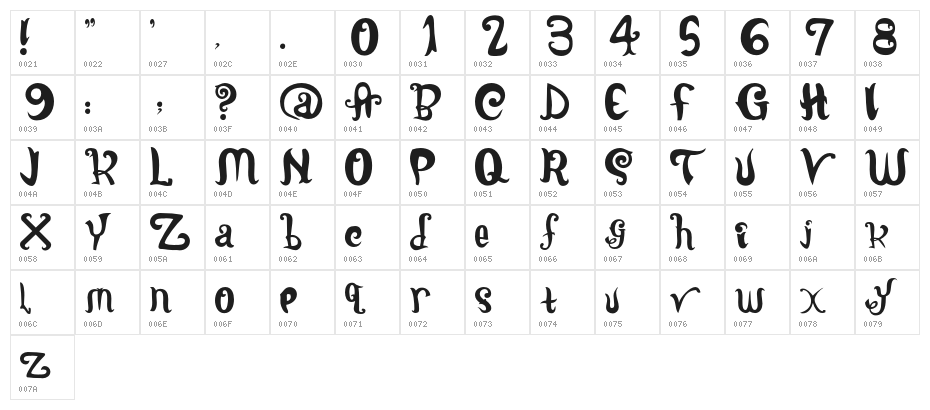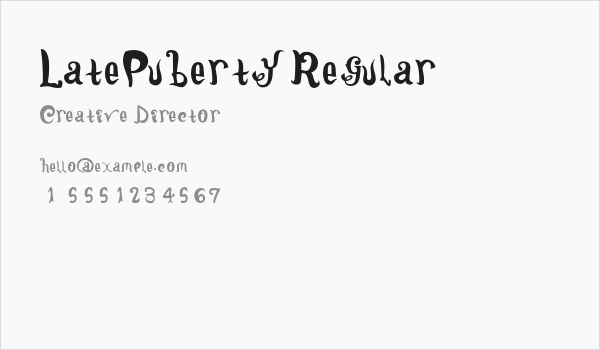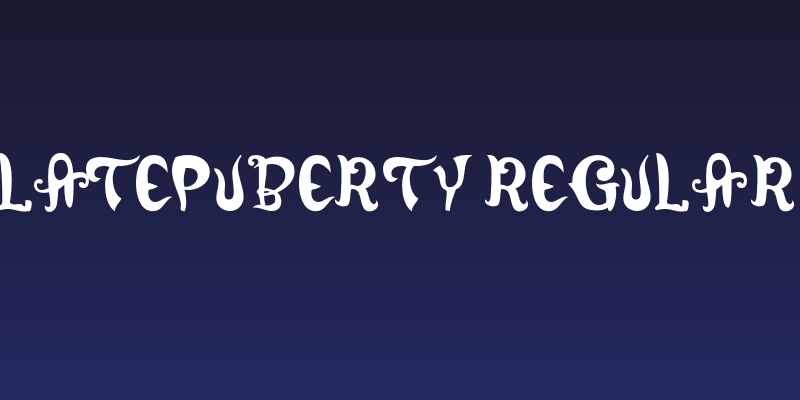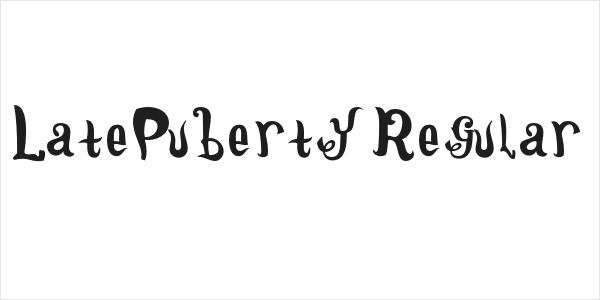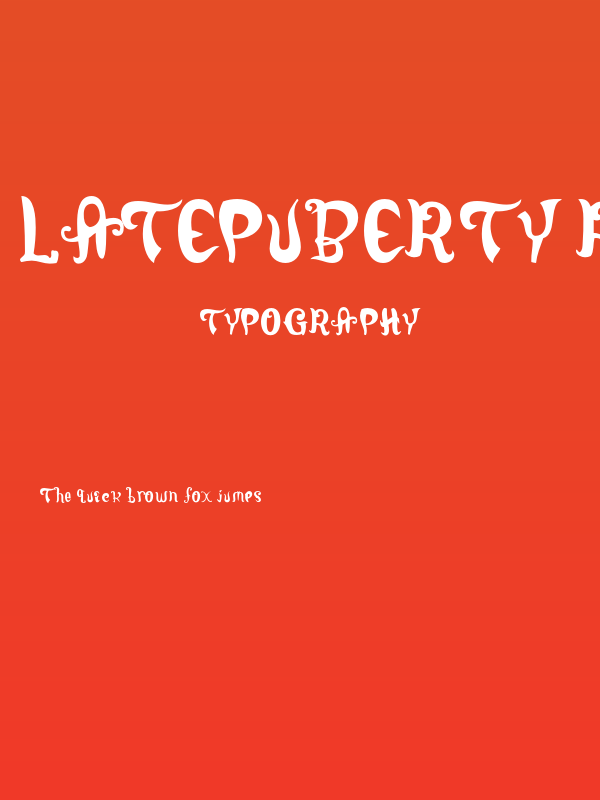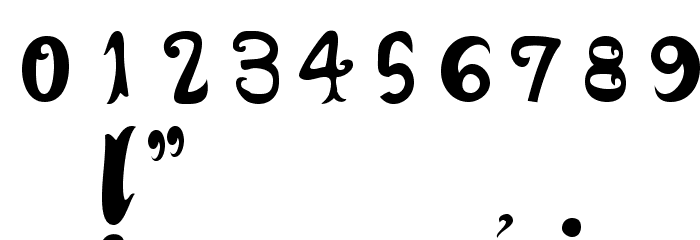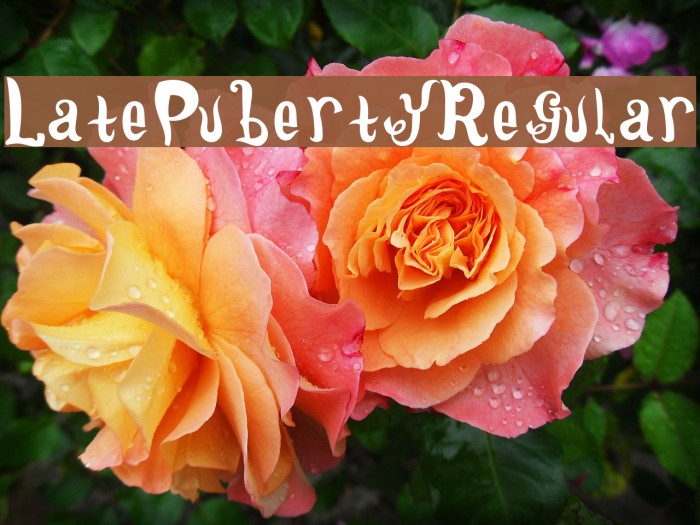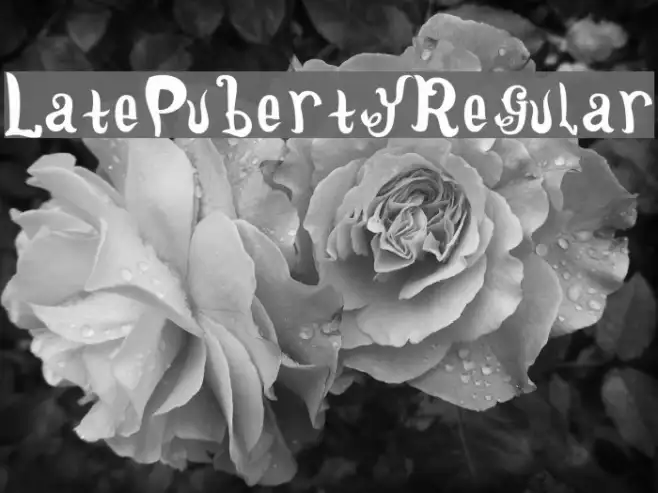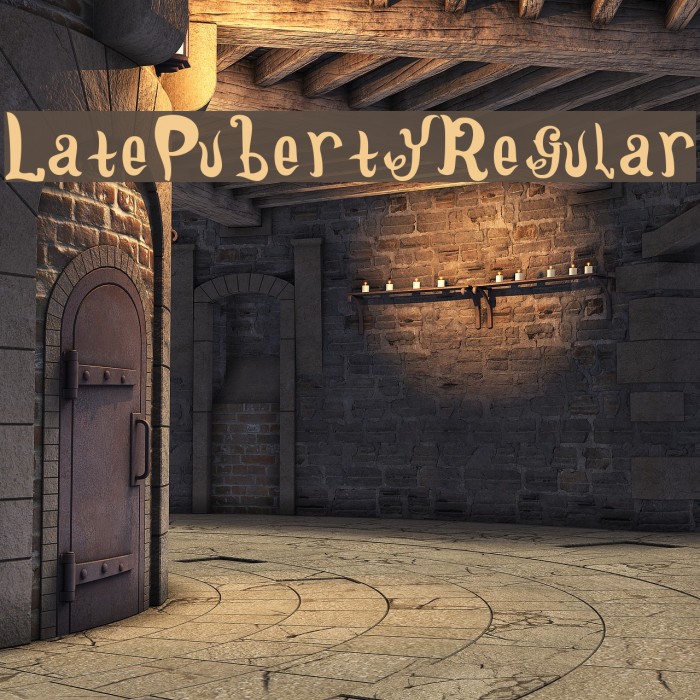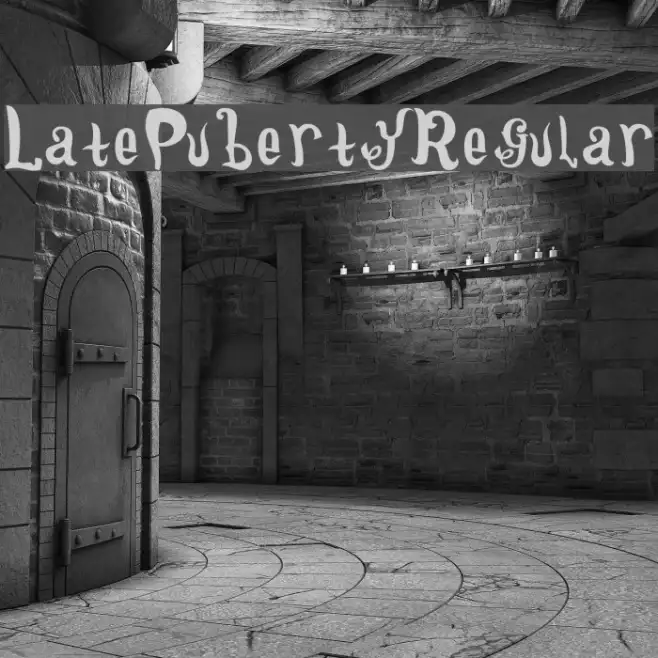
LatePuberty-Regular Font
LatePuberty-Regular Description
This font features a whimsical and playful design, characterized by its curly and exaggerated serifs. The letters have a hand-drawn quality, with varying stroke widths that add a dynamic and lively feel. The uppercase letters are bold and prominent, while the lowercase letters maintain a consistent style with unique flourishes. Numbers and special characters follow the same playful aesthetic, making the font suitable for creative and informal applications. The overall look is both artistic and approachable, with a touch of vintage charm.